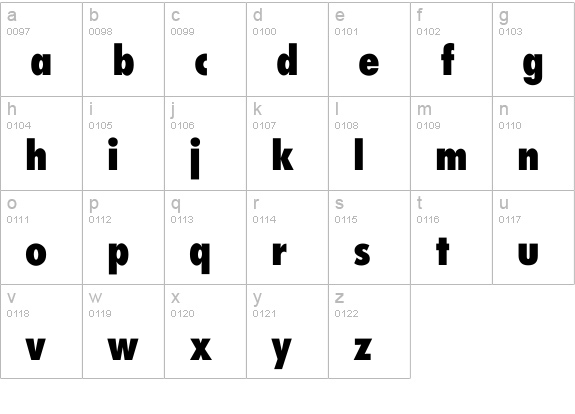
Fujiyama_ExtraBold-Normal is the standard, neutral variant in the Fujiyama_ExtraBold typeface family \xE2\x80\x94 well suited to general body text, paragraphs, and standard typographic work.
Fujiyama_ExtraBold-Normal font is a striking and bold typeface that demands attention with its strong and impactful design. This font exudes power and confidence, making it ideal for headlines, titles, and statements that need to make a bold statement. The thick strokes and sharp angles of Fujiyama_ExtraBold-Normal font give it a modern and edgy look, perfect for projects that require a touch of boldness. Best of all, Fujiyama_ExtraBold-Normal font is completely free to download at FontsMarket.com. This means you can easily access and use this impressive font for your personal or commercial projects without any cost. Whether you're designing a poster, branding materials, or social media graphics, Fujiyama_ExtraBold-Normal font is the perfect choice to add a touch of boldness and style. Download it now and make your designs stand out with this eye-catching typeface!